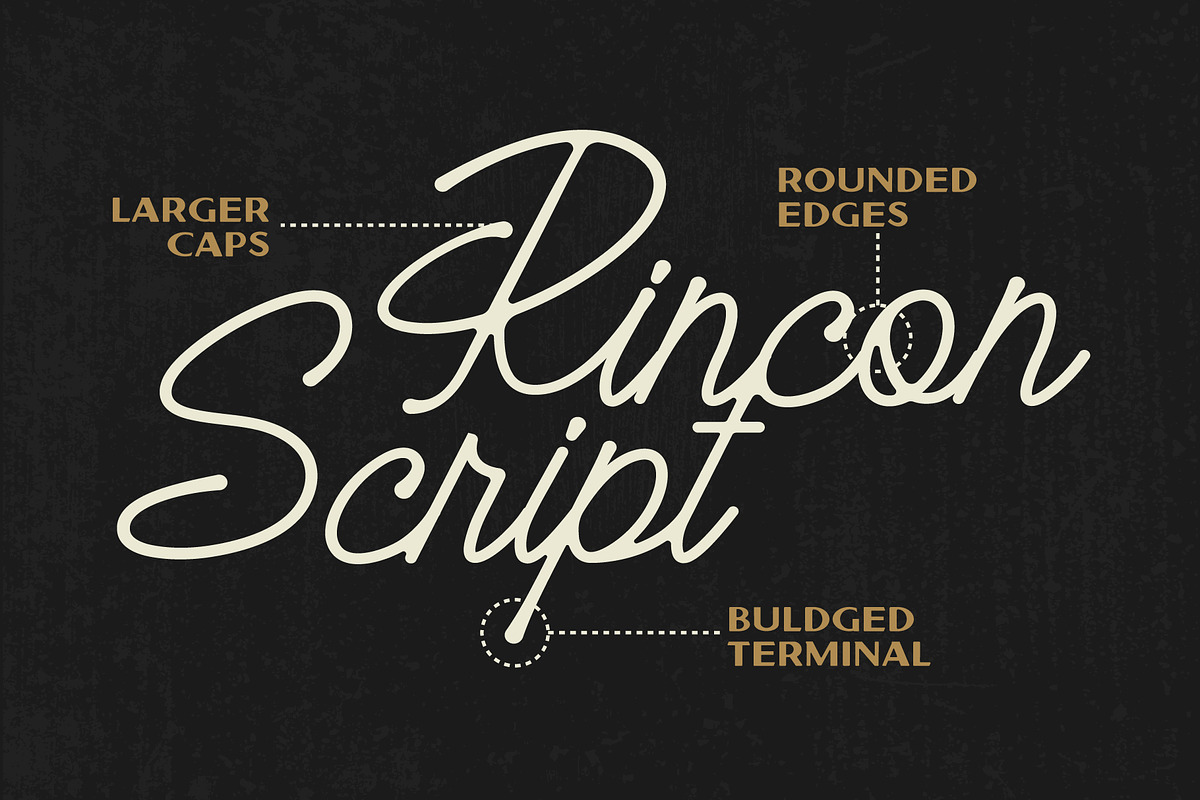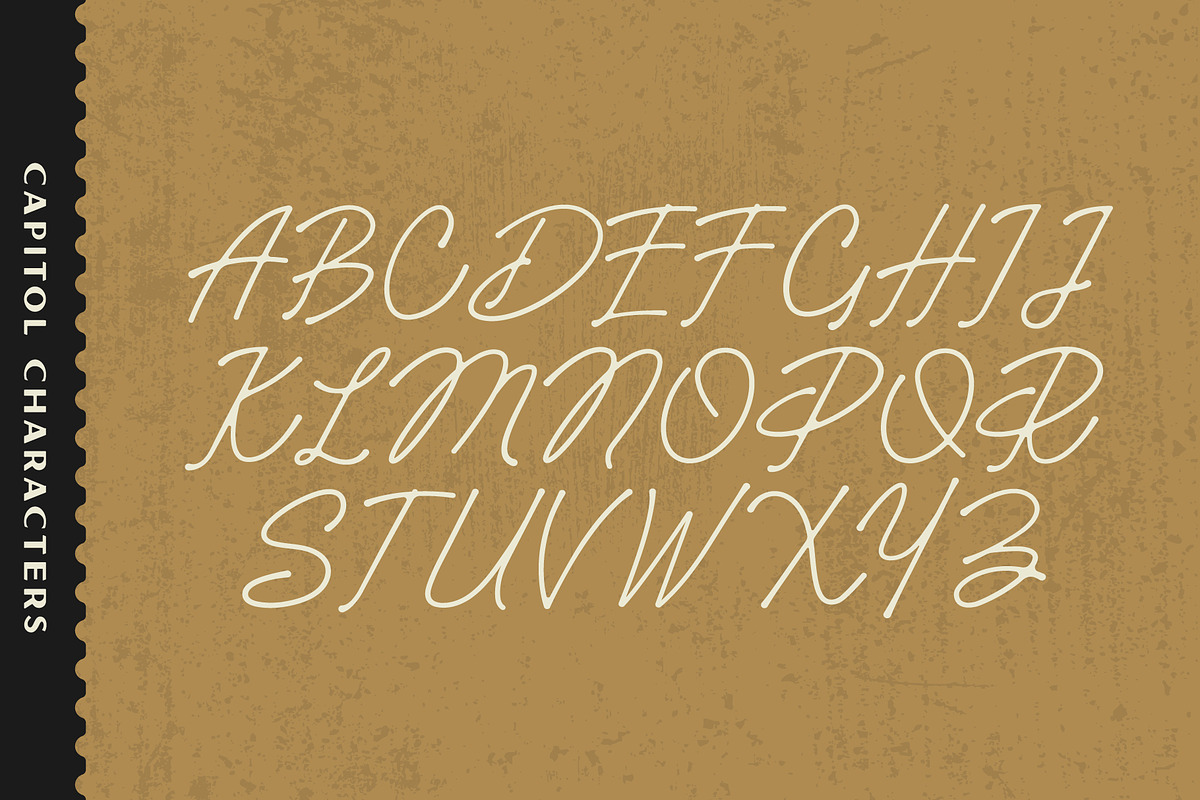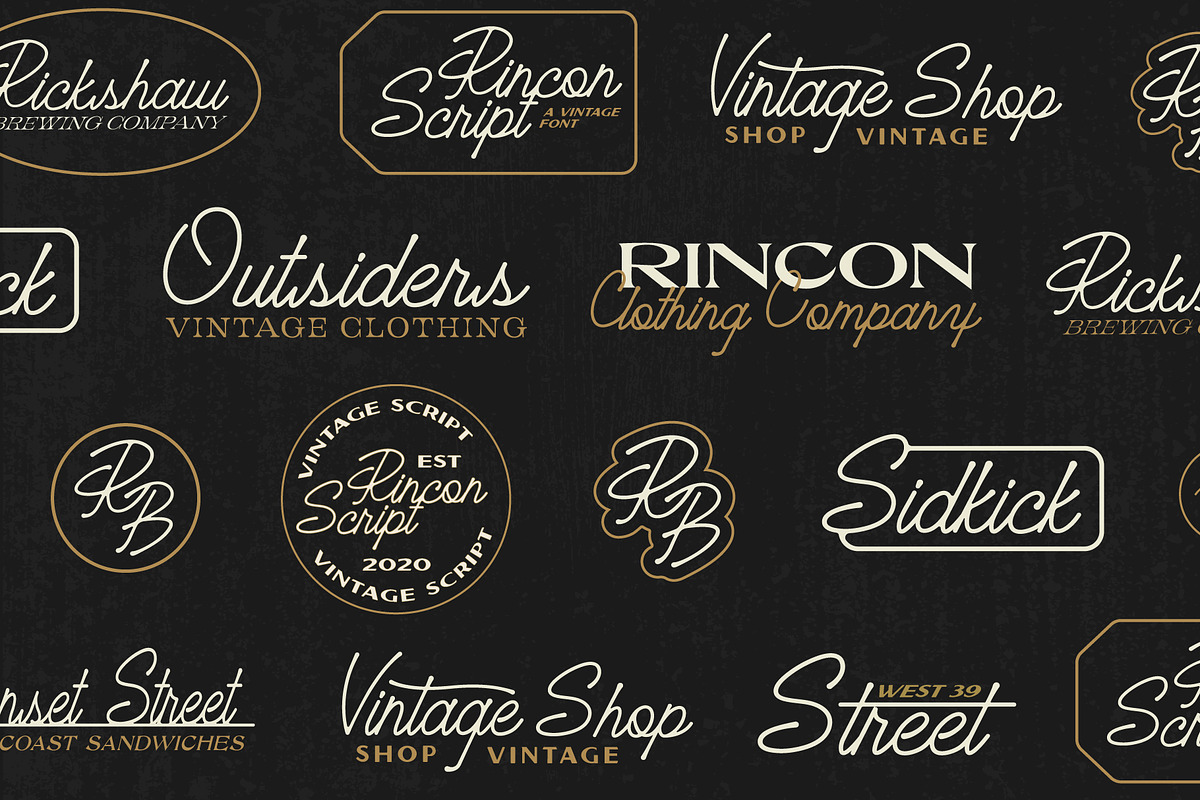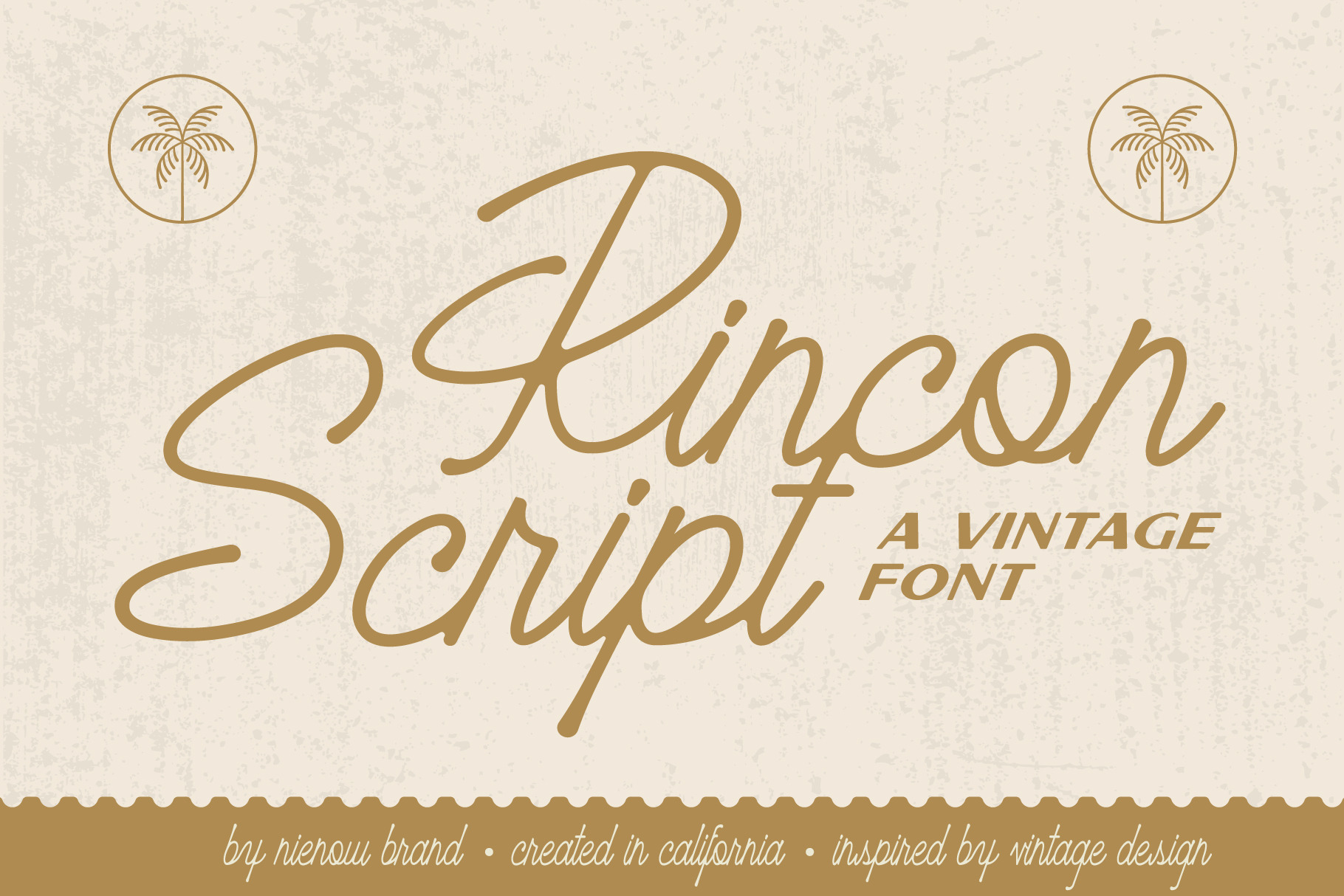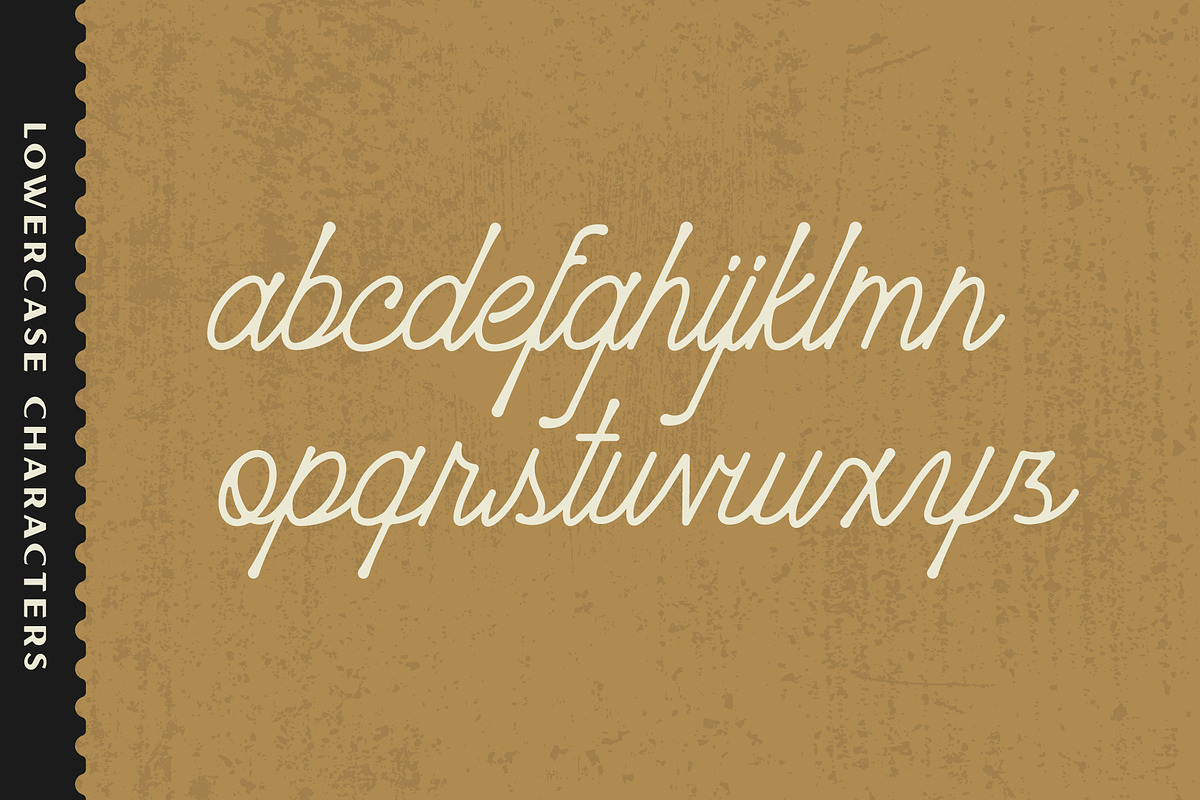
Rincon Script Typeface
Nienow Brand is debuting it’s first Script typeface! Introducing Rincon Script! Named after the flawless right-handed point break in Southern California, Rincon is packed with all those vintage vibes you will want to slap on your next branding project. Rincon features bulge-like terminals creating an inky feel & features lower and upper case. (no numbers and punctuation included-intended for a display font)